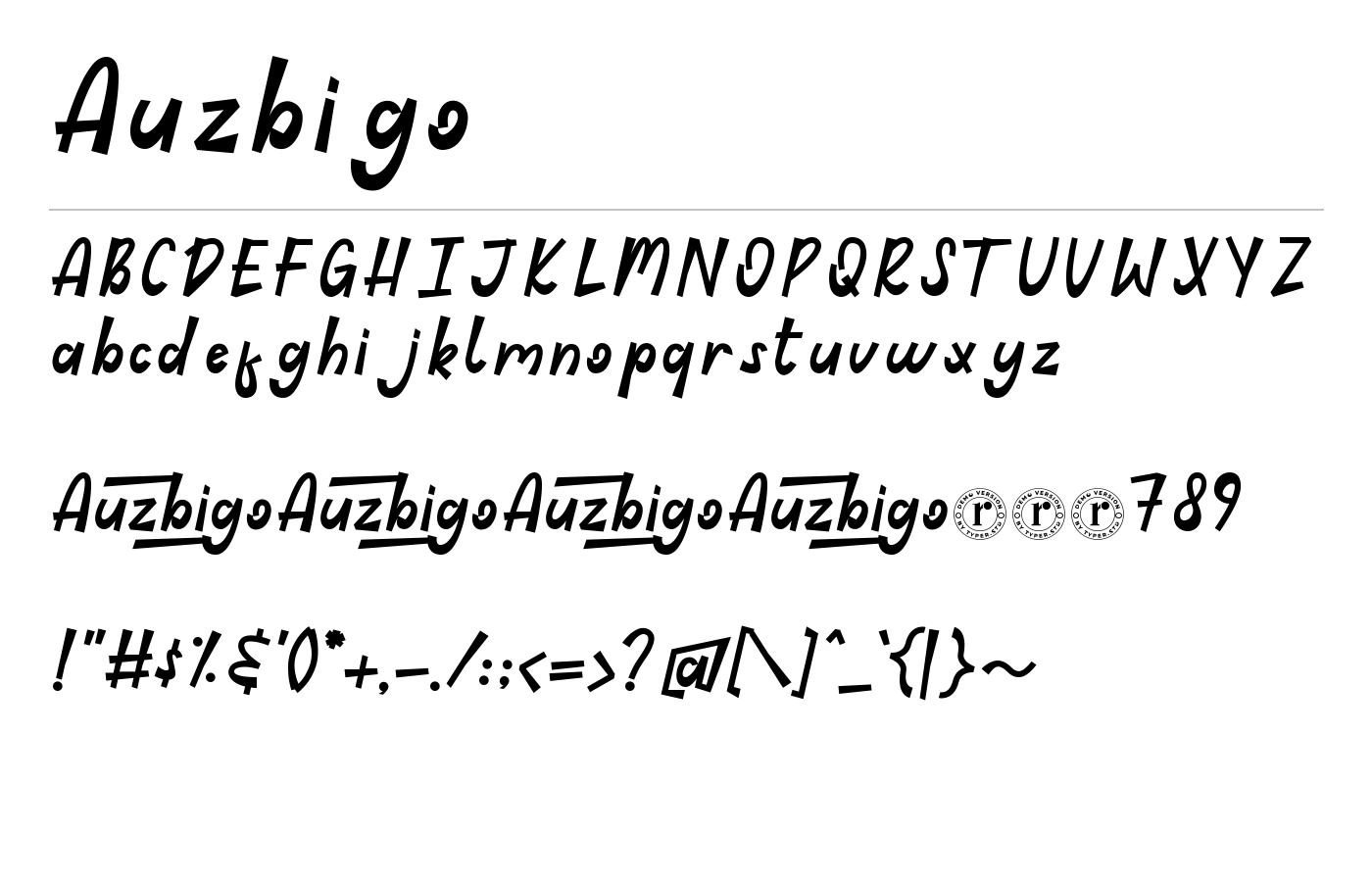
Auzbigo is a playful, casual sans serif font with a lively, handwritten feel that adds personality and charm to any design. Its slightly uneven strokes and unique, quirky letter shapes make it ideal for projects that want to convey friendliness and creativity, such as informal branding, fun posters, or engaging digital content. This font works best in headlines and display uses where its character can truly stand out and capture attention.
Auzbigo Font